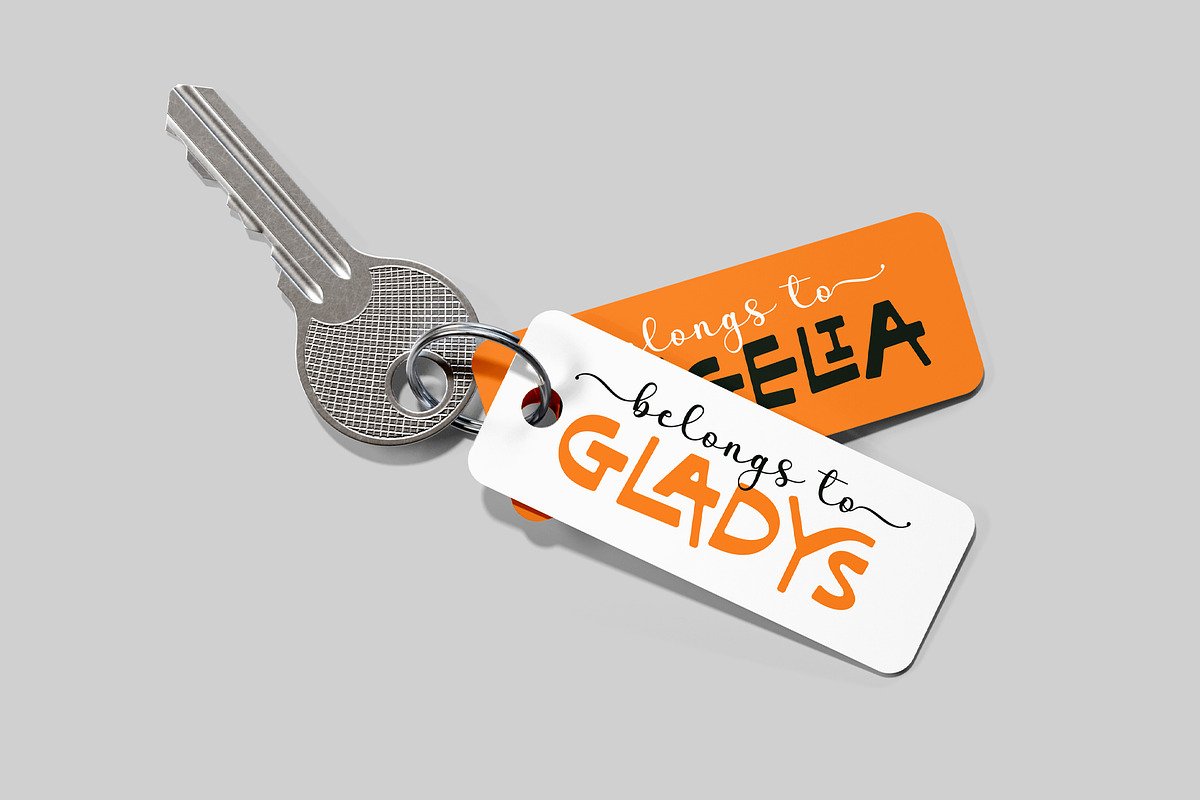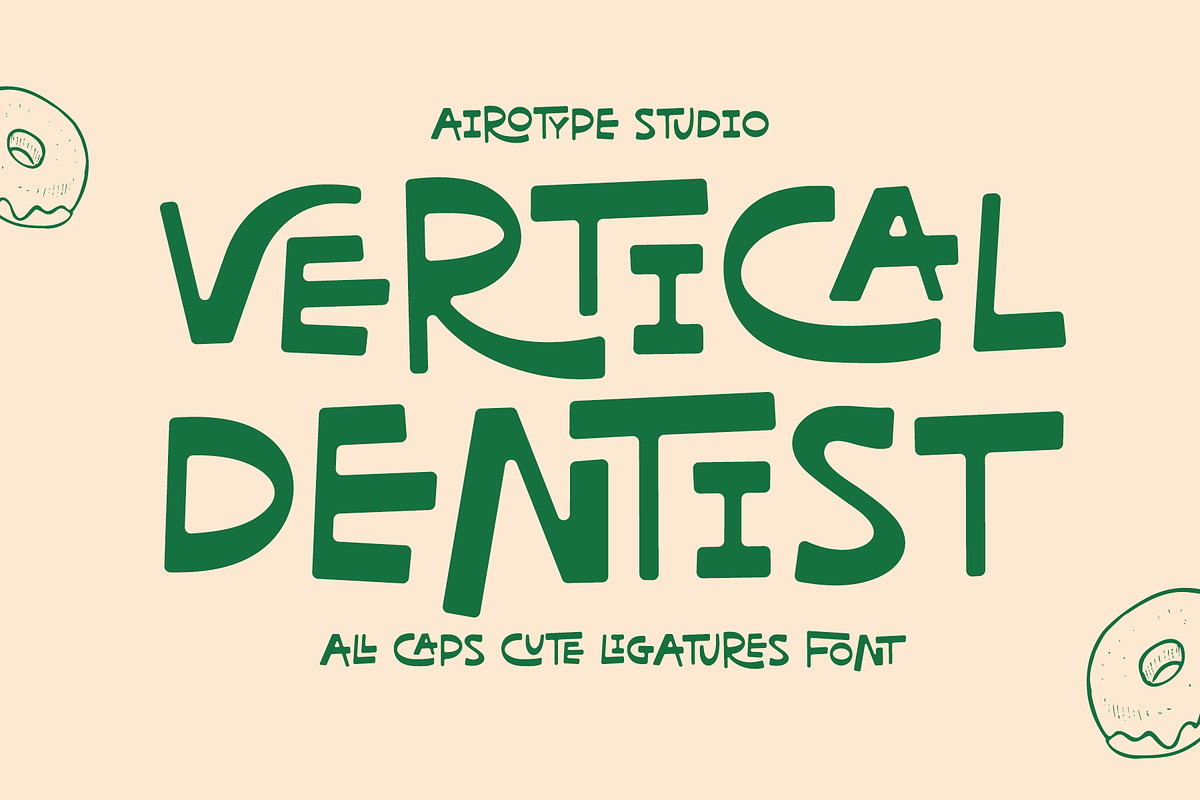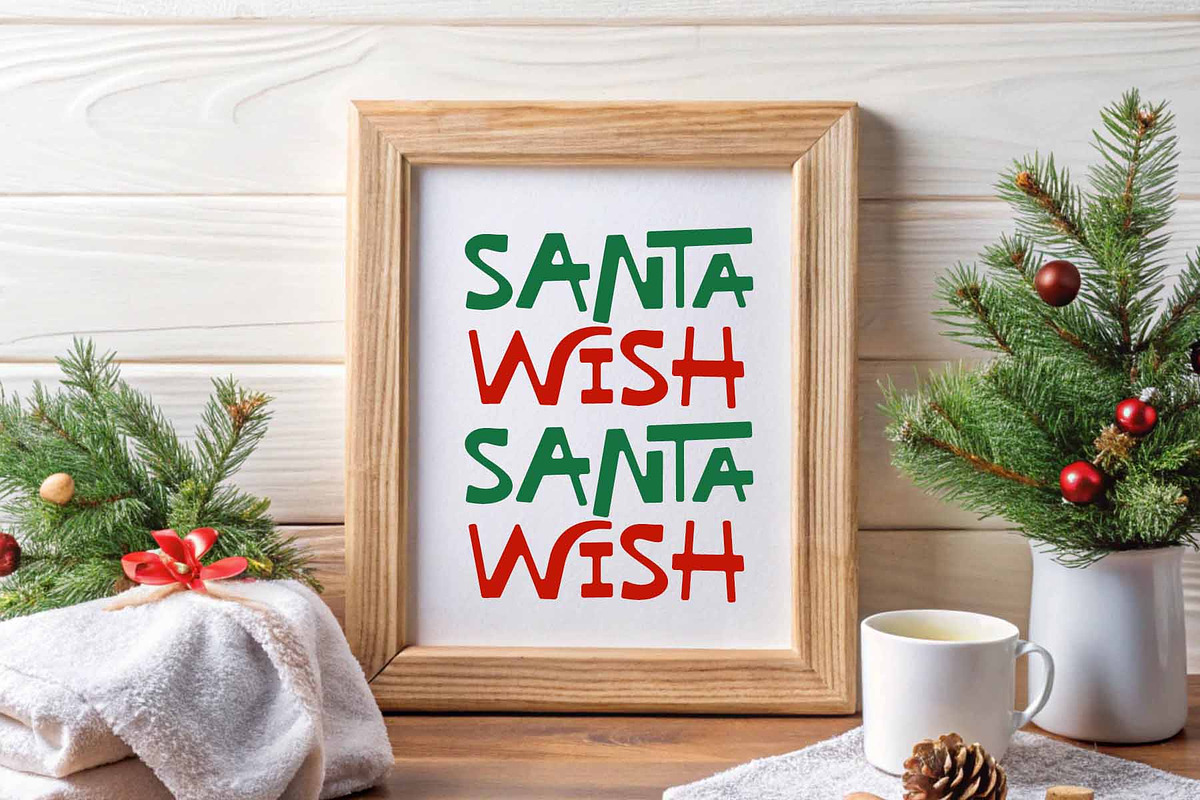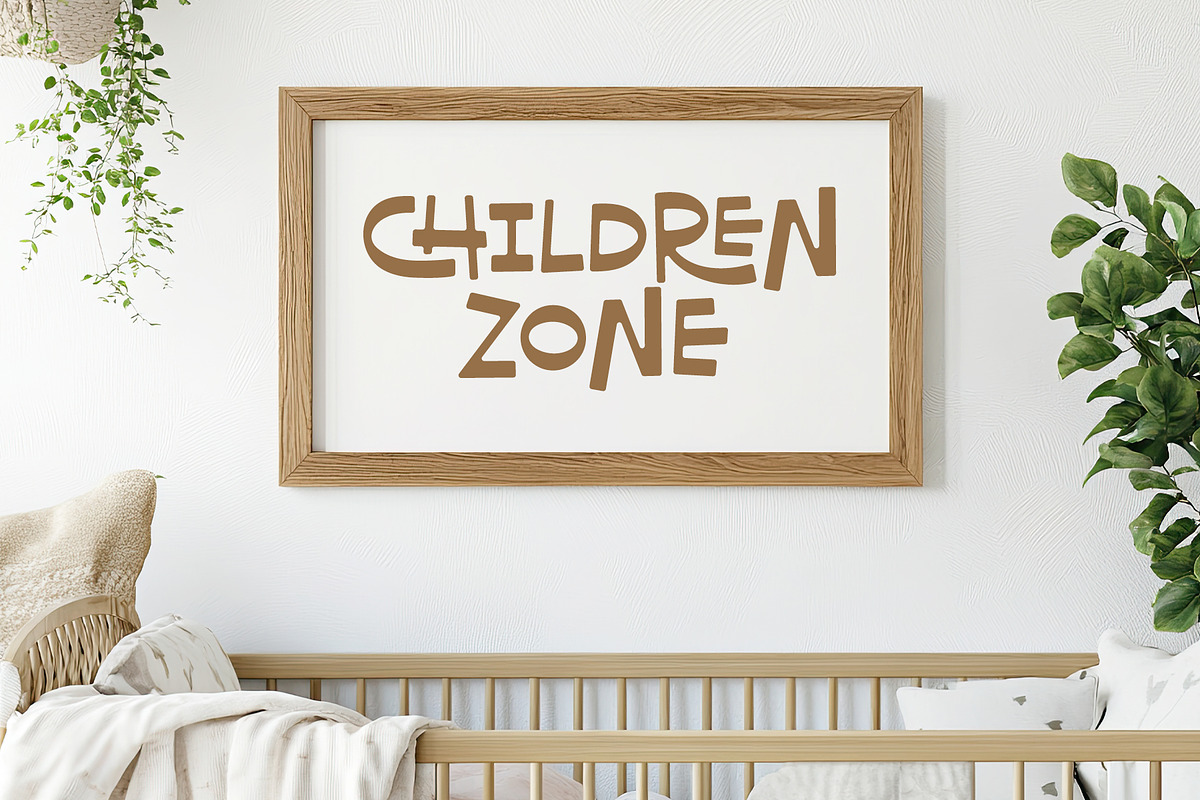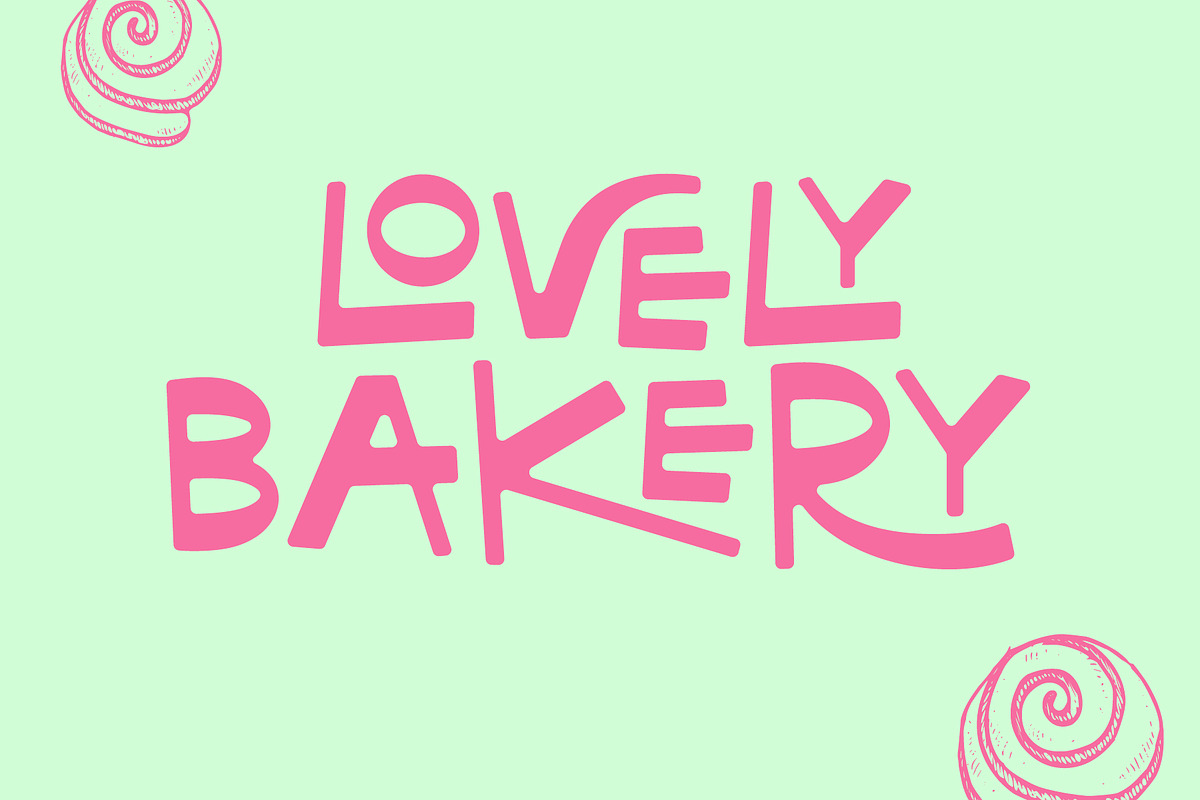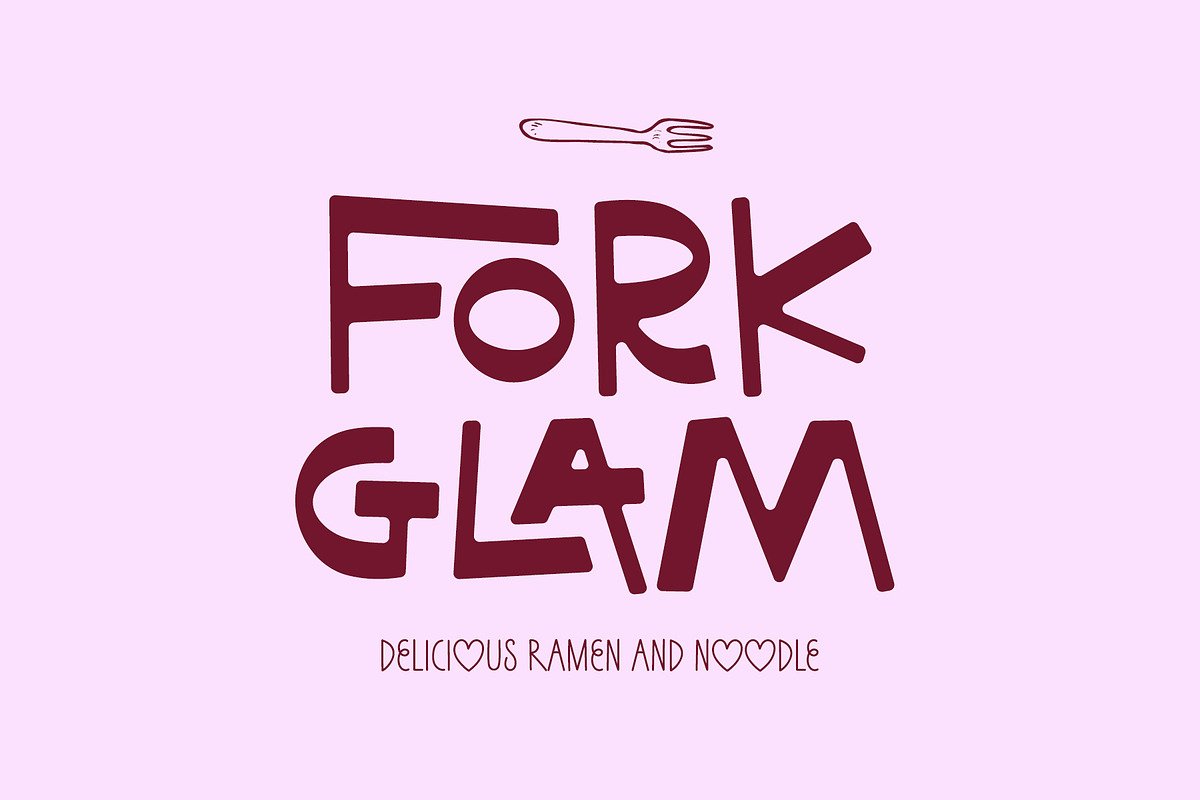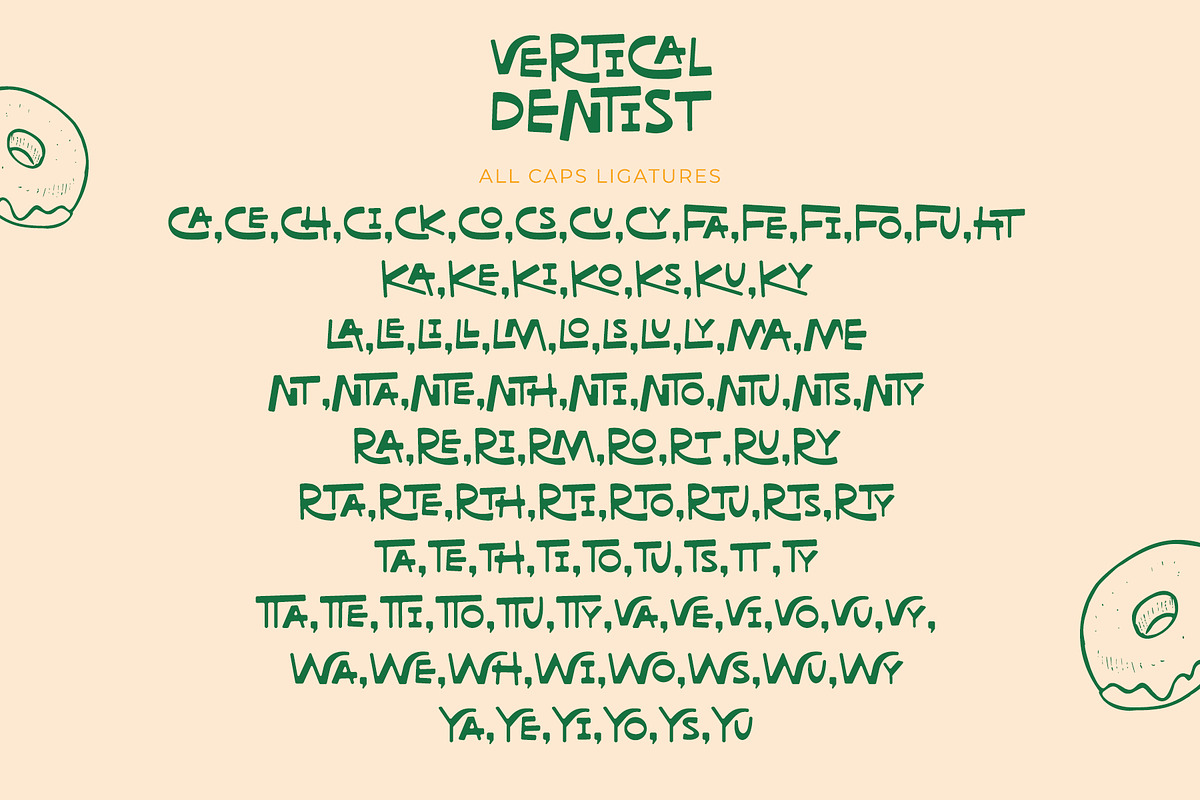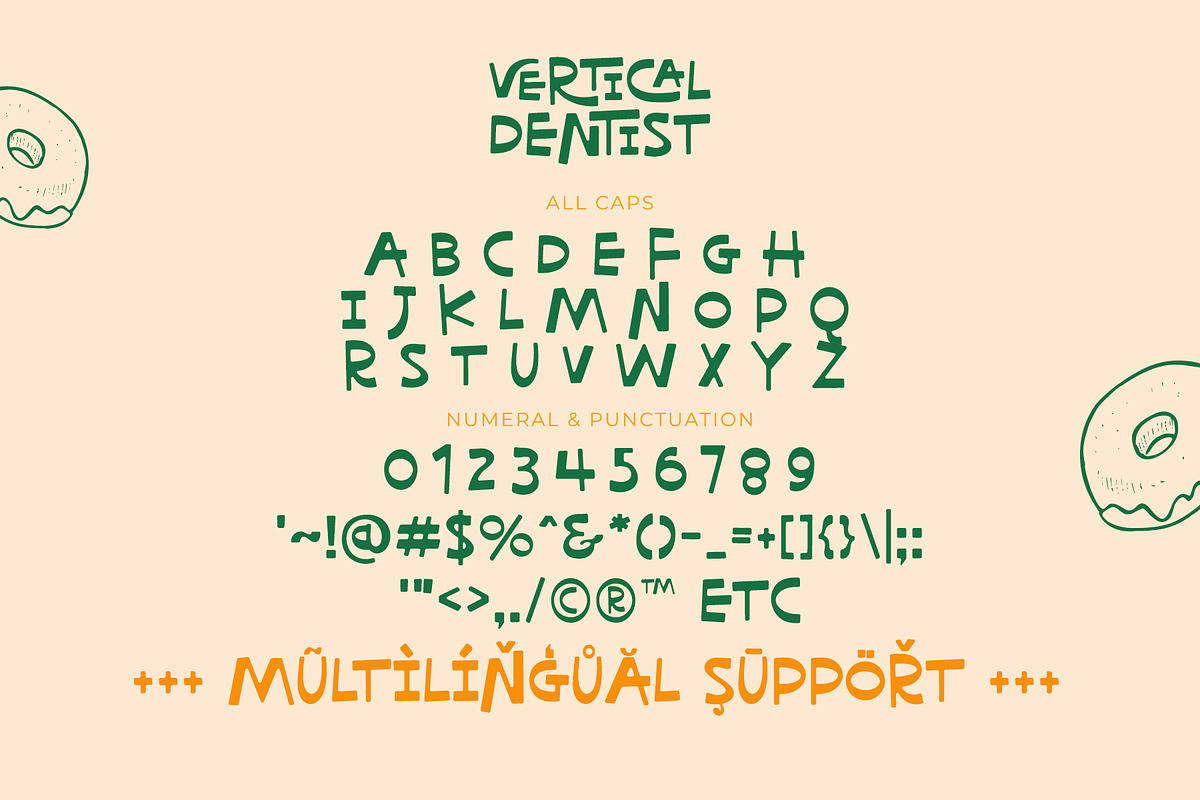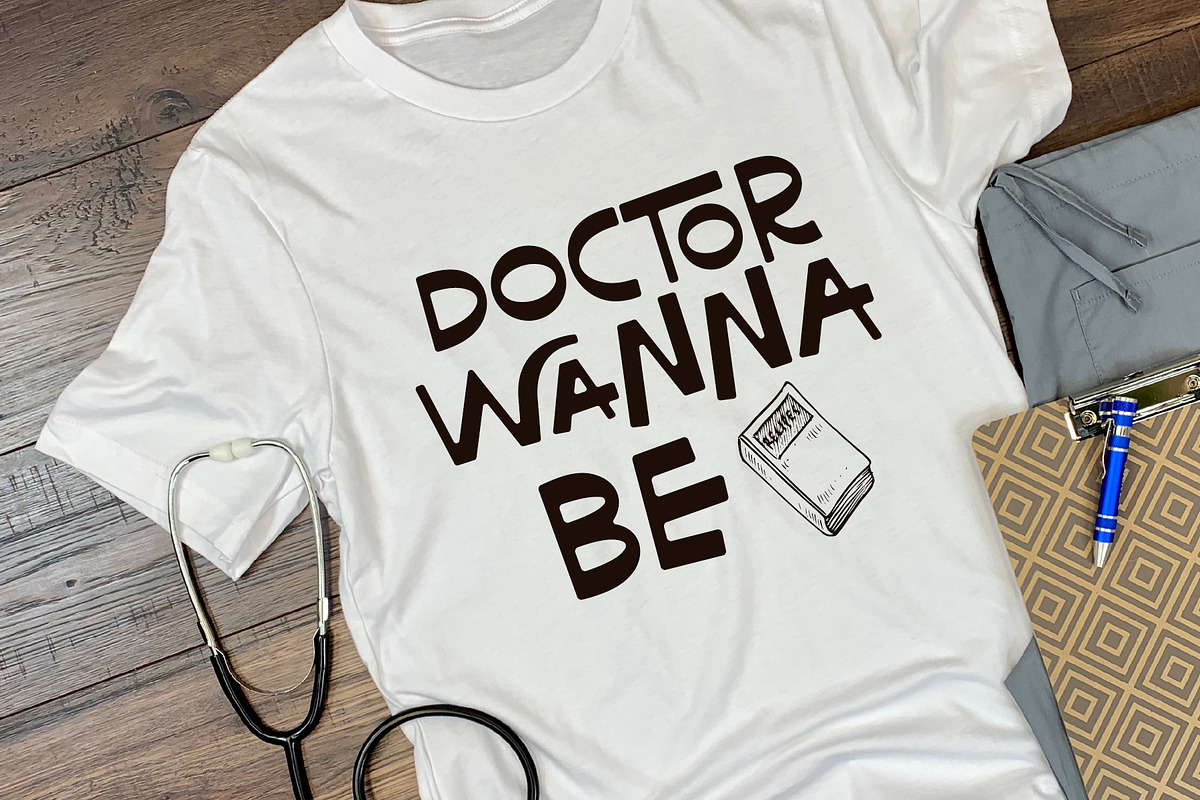
Vertical Dentist - Fun Ligature Font
Vertical Dentist is bold all caps font. This font has festive, cute, bouncy vibes.
Vertical Dentist has tons of ligatures with cute style. Make sure your design software has ligature features.
Vertical Dentist is playful and fun font for design with cute theme, such as t-shirt, logo, display, crafting, sticker, quotes, tumbler, and many more.
- All Caps with ligatures
- Most Multilingual Accent